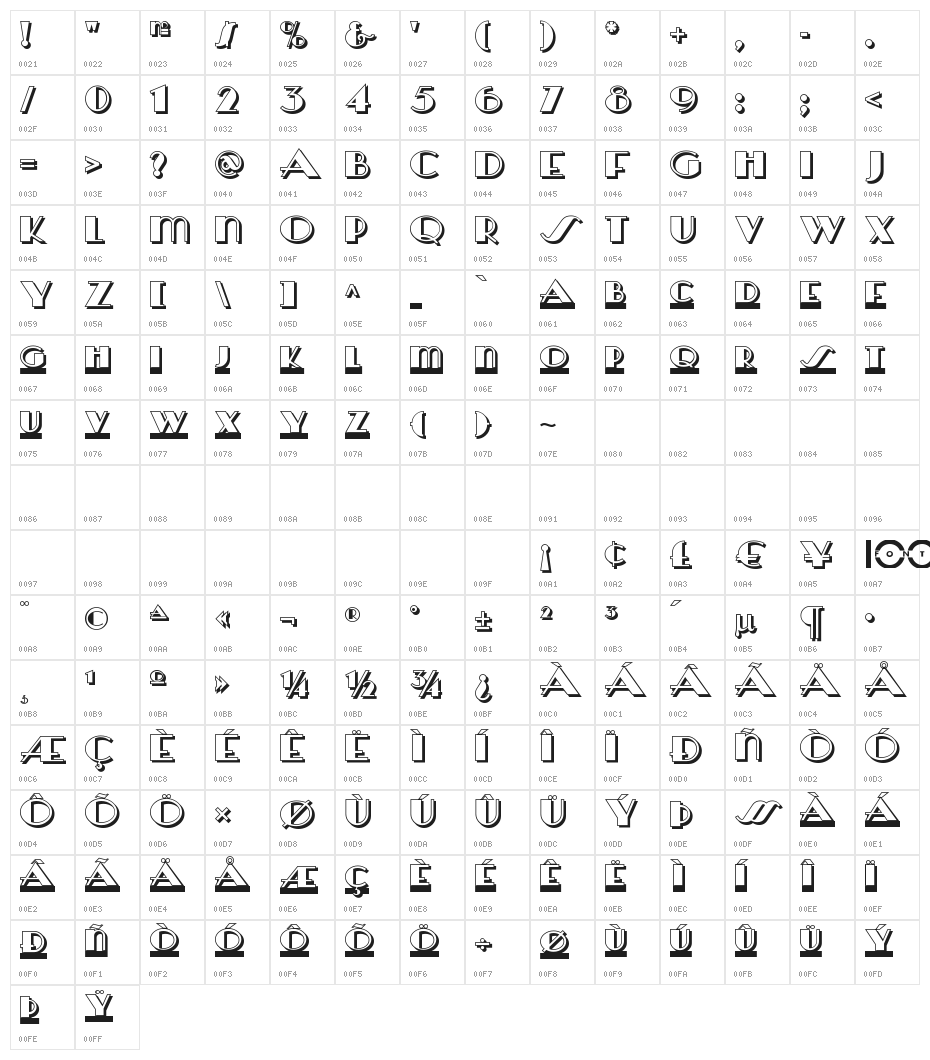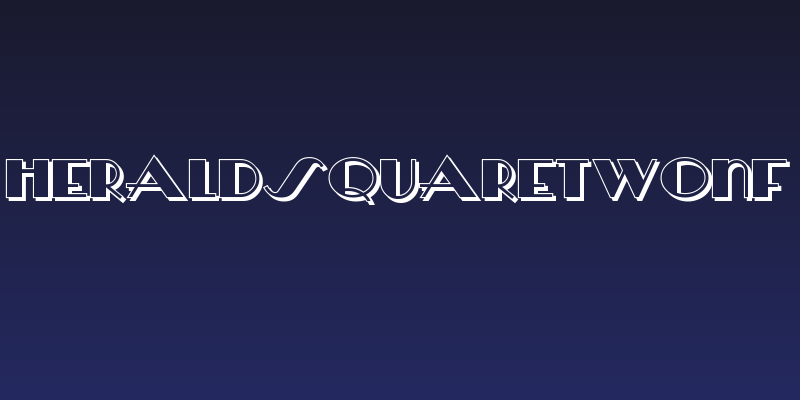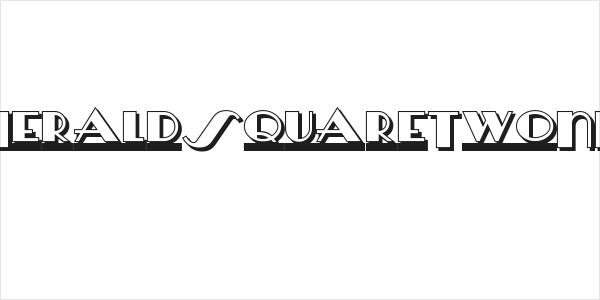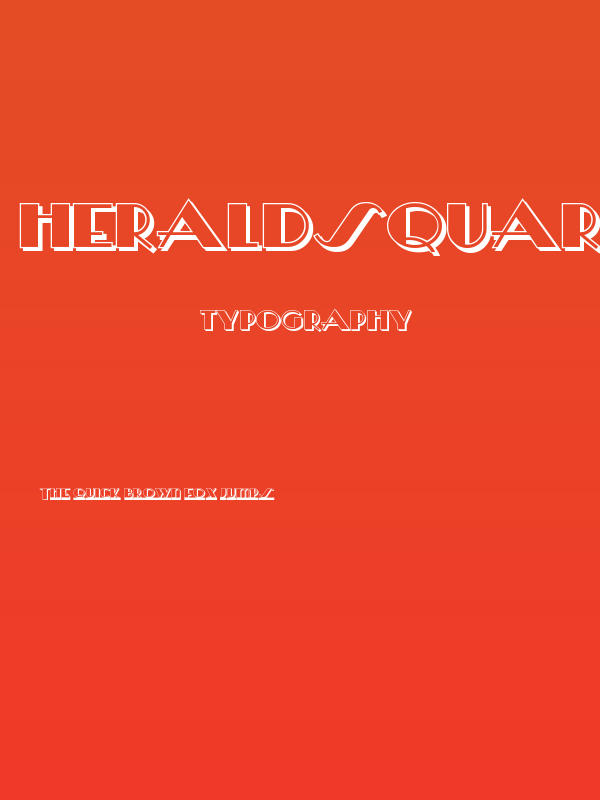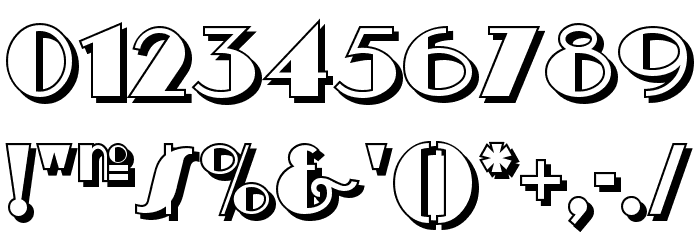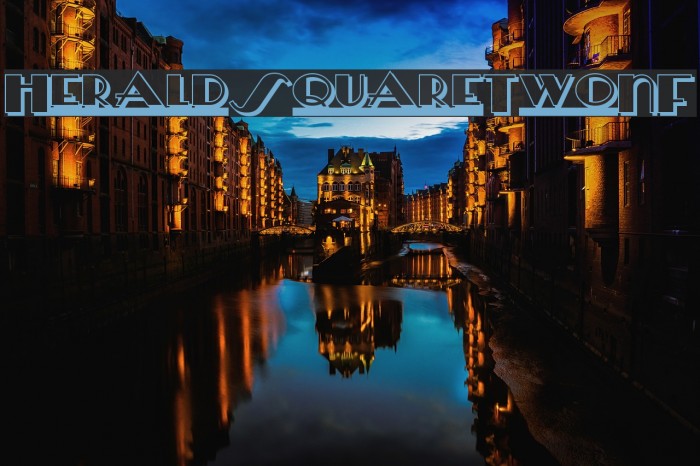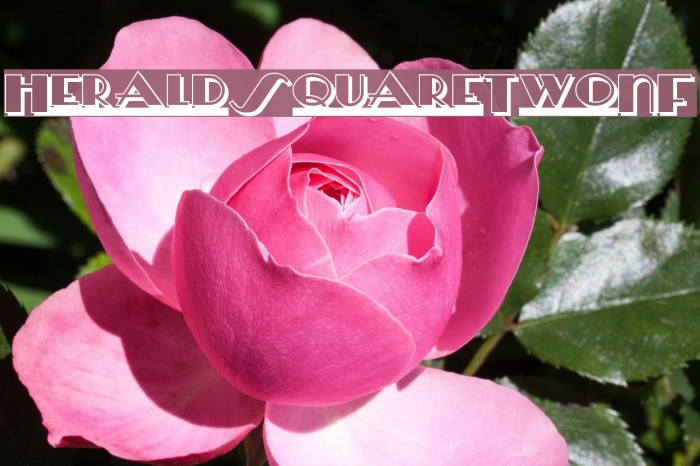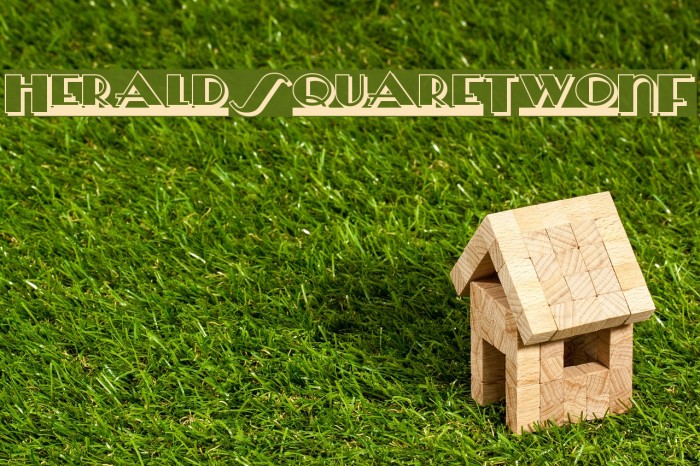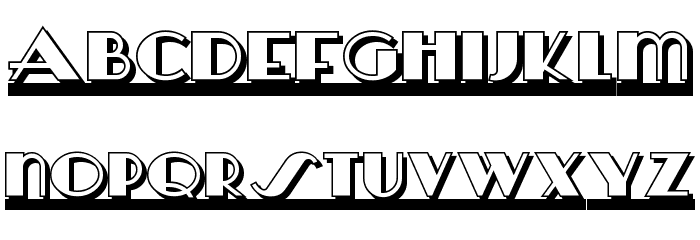
HeraldSquareTwoNF Font
✎ Art Deco
HeraldSquareTwoNF Description
This font features a bold, geometric design with a distinct Art Deco influence. The characters are constructed with a combination of straight lines and curves, creating a sense of movement and elegance. The uppercase letters have a strong presence, with some characters incorporating unique cutouts and angles that add to the decorative style. The lowercase letters maintain a similar aesthetic, ensuring consistency throughout the typeface. The numerals are equally bold and stylized, making them stand out. Special characters are designed with the same attention to detail, enhancing the overall cohesive look of the font. This typeface is ideal for projects that require a touch of vintage flair combined with modern design elements.